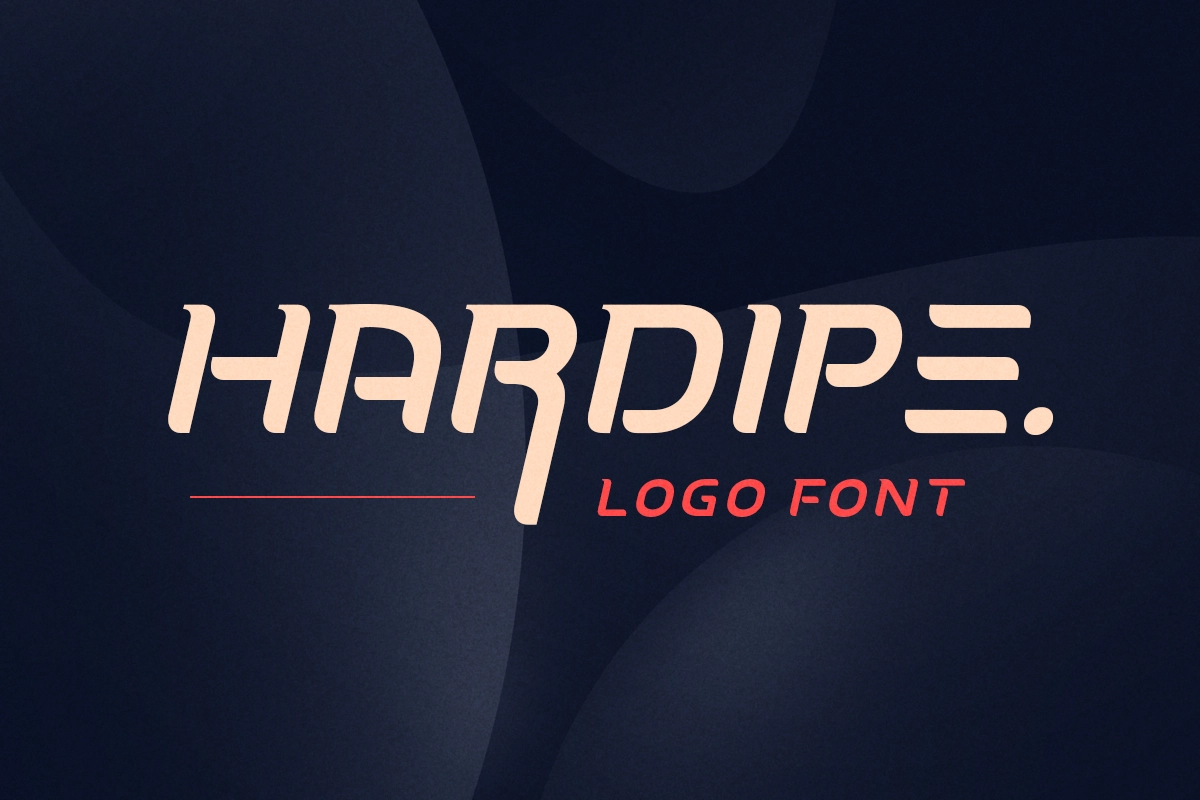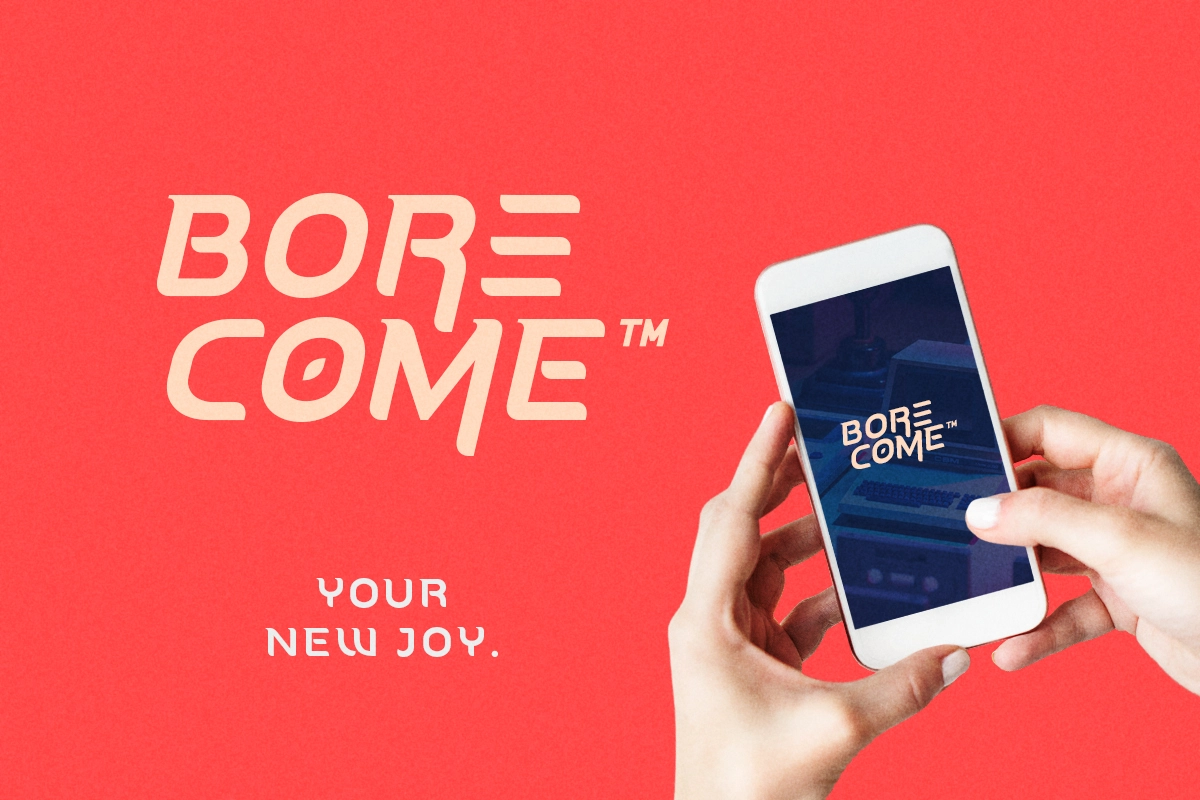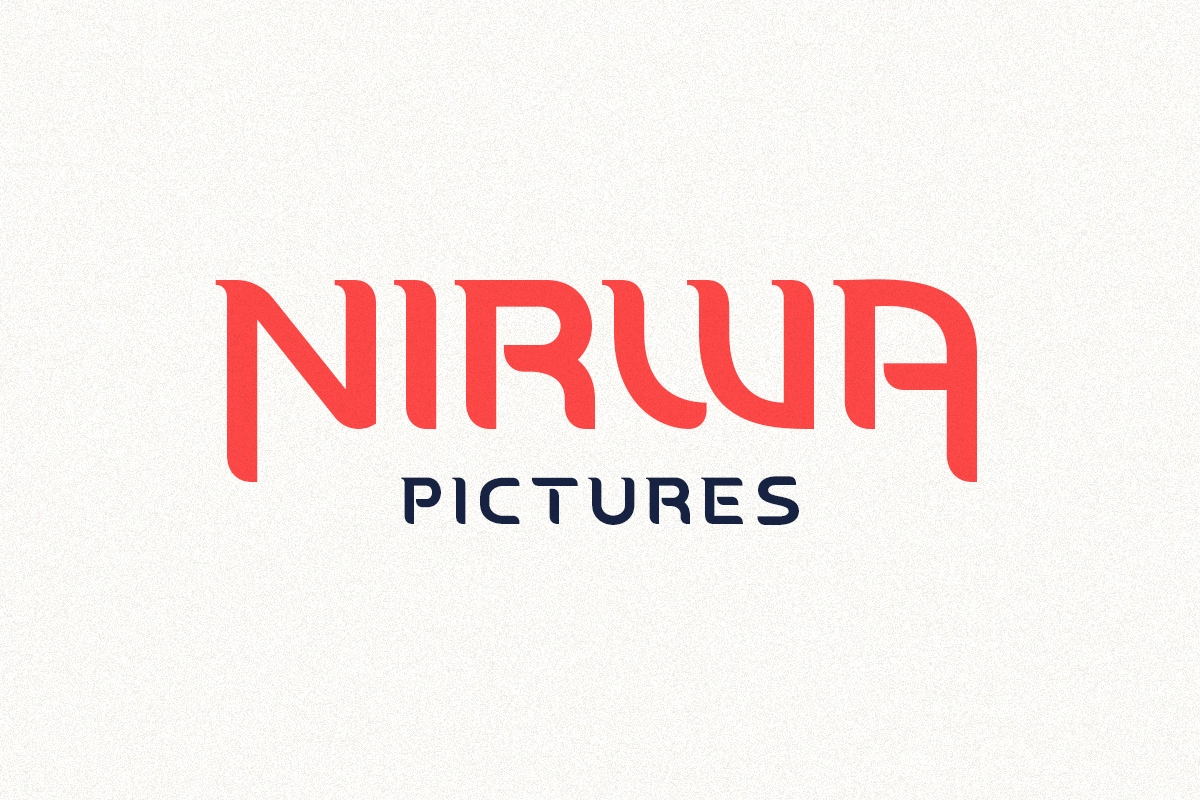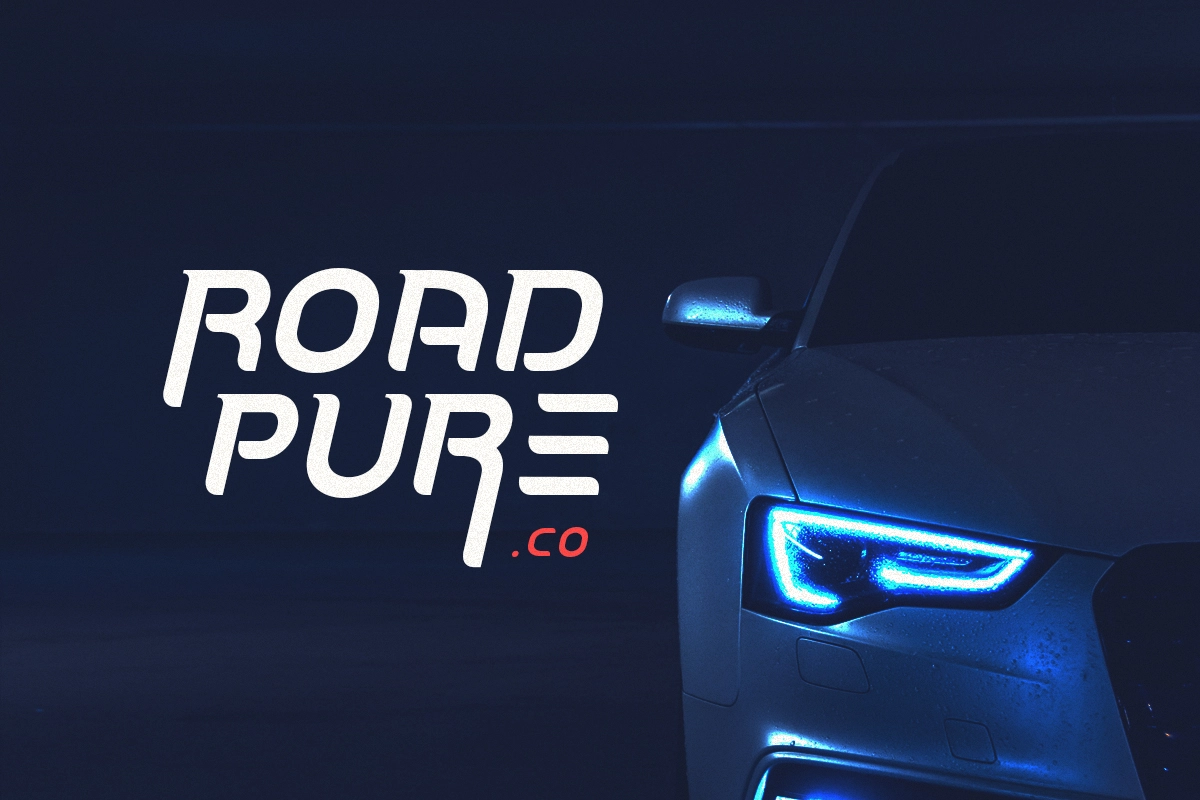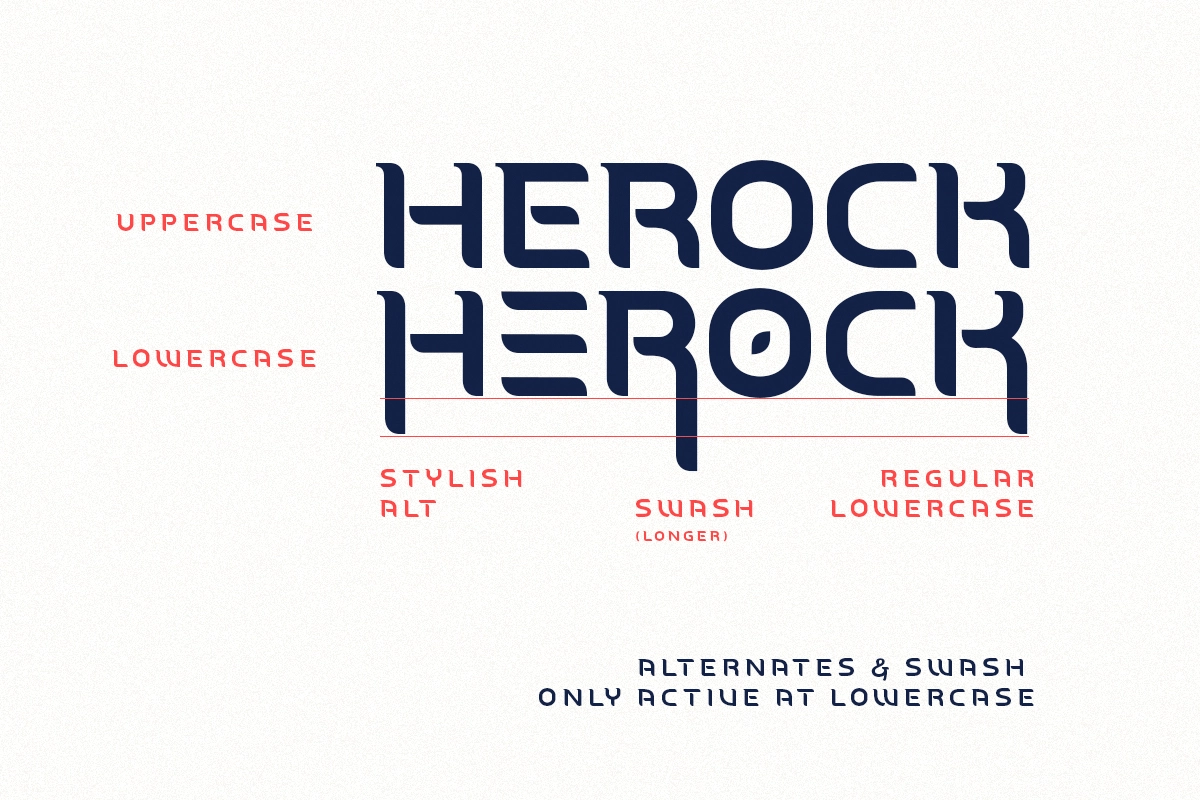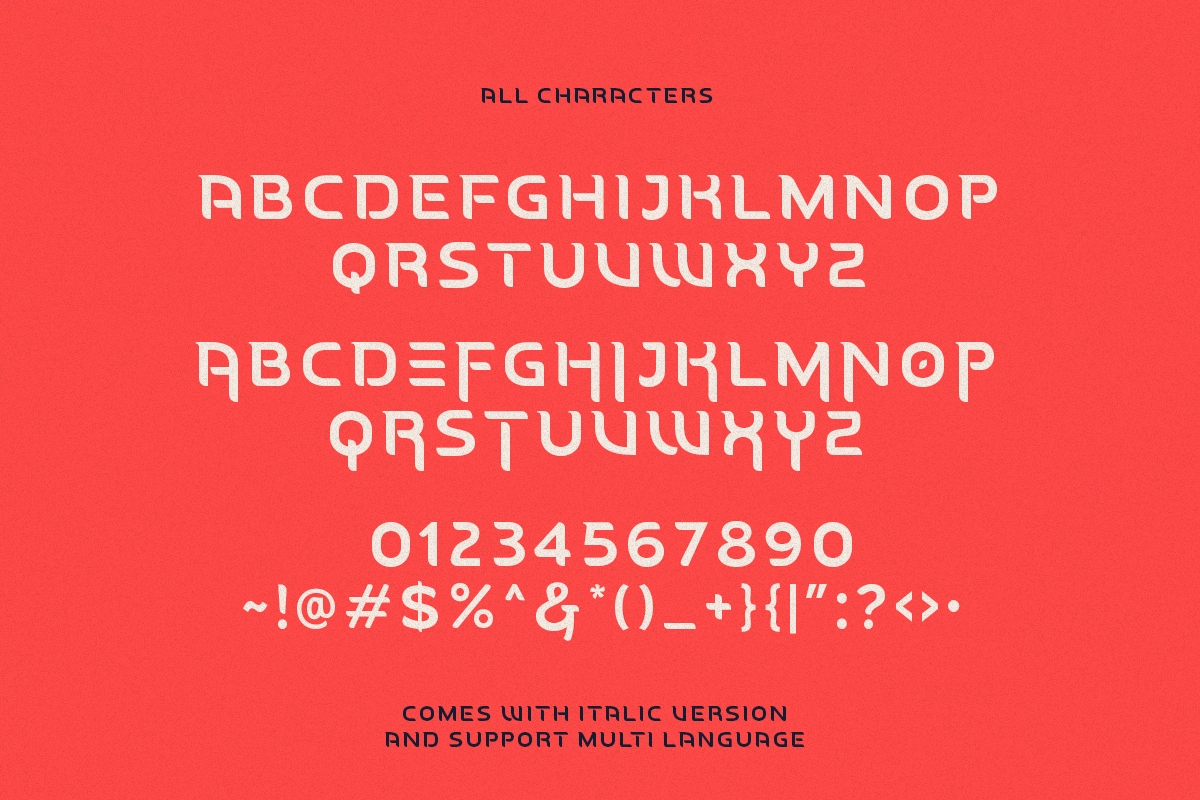
Hardipe - Grand Logo Font
Hardipe is logo fonts with unique side that will make your logo and design looks more simple and stylish. With the unique characteristic lowercase, this font can make your logo even more stunning. You can use this font for any purpose, especially to make logotype. You can mix and match the uppercase and lowercase to make your logo more stand out. Hardipe also comes with italic version that have different vibes. This font also comes with number, symbol, and multilingual support!